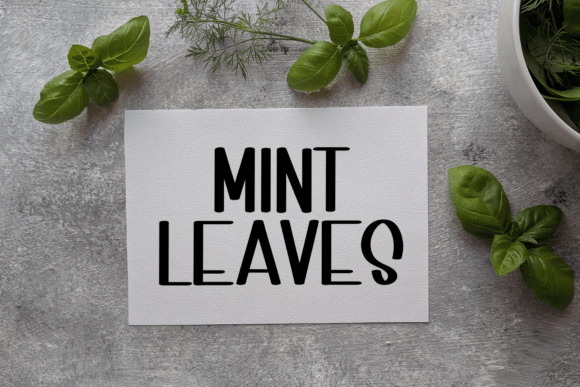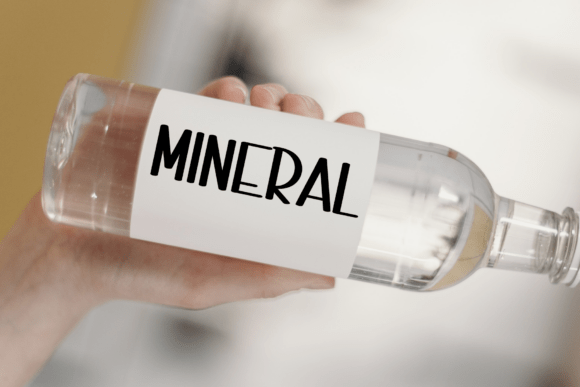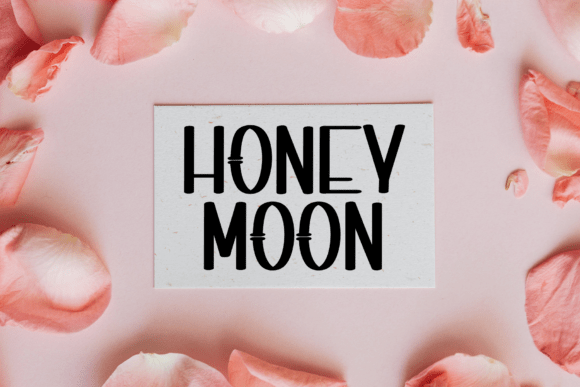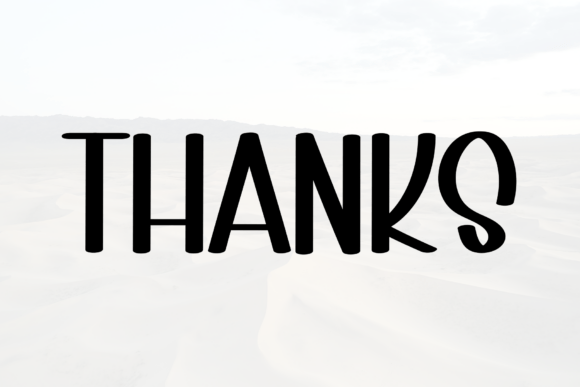
Funky Tasty Font: Elevate Your Designs with a Relaxed yet Luxurious Touch
Are you on the hunt for a font that exudes a carefree and sporty vibe while still conveying luxury and elegance? Look no further than the Funky Tasty Font. This handwritten font, designed to mimic the look of marker-drawn letters, is perfect for designers and crafters seeking to add a unique touch to their projects.
The Characteristics of Funky Tasty Font
Funky Tasty is a one-of-a-kind font that boasts a relaxed and casual feel, making it ideal for a wide range of design applications. Its sporty and laid-back vibe is balanced by a hint of sophistication, allowing it to be used in both playful and luxurious contexts. The font’s marker-drawn appearance gives it a distinctive, hand-crafted look that sets it apart from more traditional fonts.
Perfect for Branding and Logos
When it comes to branding and logos, a font can make all the difference. Funky Tasty Font offers a unique opportunity to create a memorable and eye-catching brand identity. Its distinctive look and feel can help your brand stand out from the competition, conveying a sense of fun and approachability while still appearing stylish and high-end.
Ideal for Wedding Supplies and Greeting Cards
For crafters and designers specializing in wedding supplies and greeting cards, Funky Tasty Font is a dream come true. Its elegant yet casual appearance makes it perfect for creating beautiful, one-of-a-kind stationery, wedding invitations, and greeting cards that are sure to impress. Whether you’re looking to add a personal touch or create a cohesive brand identity, this font is sure to deliver.
Fashion and Lookbooks
Funky Tasty Font is also a great choice for fashion designers and lookbook creators. Its sporty and stylish vibe makes it perfect for showcasing clothing and accessories in a way that’s both fashionable and fun. Use it to create eye-catching headlines, titles, and captions that will make your designs pop.
Marketing Promotions and Beyond
The versatility of Funky Tasty Font extends far beyond branding, logos, and wedding supplies. It’s also perfect for marketing promotions, social media graphics, and any other design project where you want to make a statement. Whether you’re creating flyers, brochures, or email campaigns, this font is sure to help your designs stand out.
Why Choose Funky Tasty Font?
So why choose Funky Tasty Font over other fonts on the market? Here are just a few reasons:
- Unique and distinctive look: Funky Tasty Font offers a one-of-a-kind appearance that’s sure to set your designs apart.
- Relaxed and sporty vibe: Perfect for designs that need a carefree and casual touch.
- Luxurious and elegant feel: Despite its casual appearance, Funky Tasty Font still conveys a sense of sophistication and style.
- Versatile: Use it for a wide range of design applications, from branding and logos to wedding supplies and marketing promotions.
If you’re looking for a font that offers a unique blend of style, sophistication, and playfulness, Funky Tasty Font is the perfect choice. Its relaxed and sporty vibe, combined with its luxurious and elegant feel, make it perfect for a wide range of design applications. Whether you’re a designer, crafter, or simply someone looking to add a personal touch to your projects, Funky Tasty Font is sure to deliver.